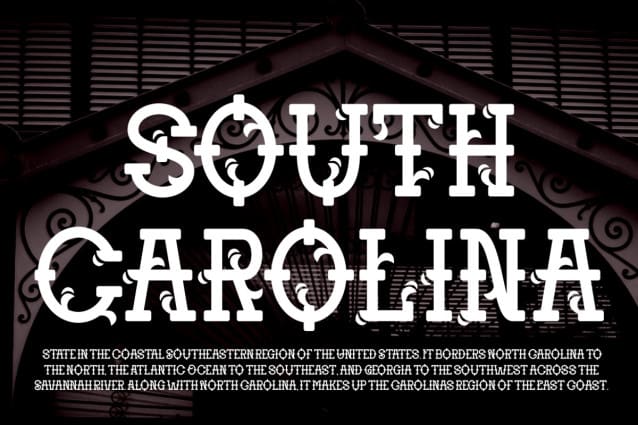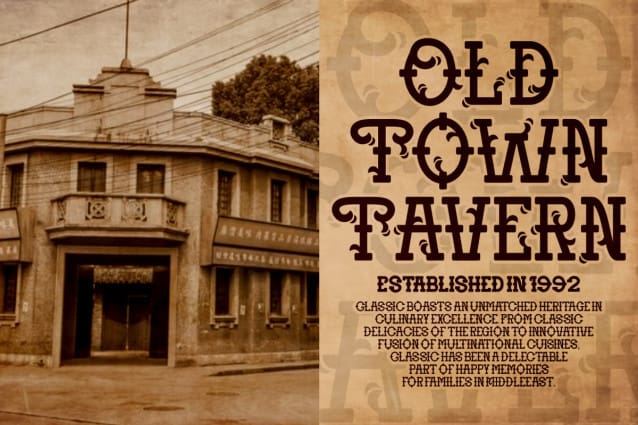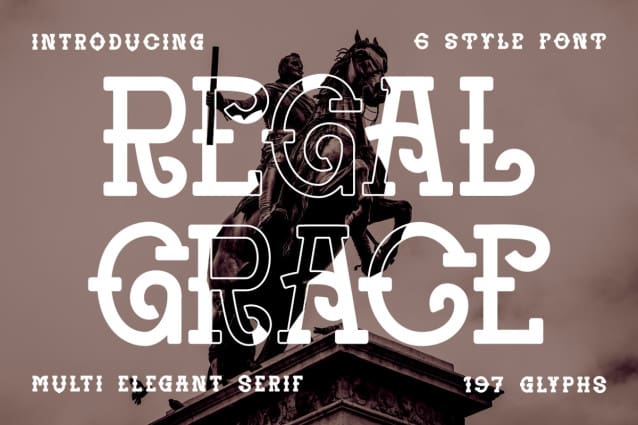
Regal Grace Font
Regal Grace Font – Multi Elegant Serif Font, where timeless elegance meets versatile functionality. This exquisite typeface embodies sophistication with its classic serif detailing and clean lines that exude an air of distinction. With six unique styles to choose from, Regal Grace offers designers an array of options for creating impactful visuals that speak volumes without saying a word. Each glyph has been crafted with precision to ensure readability while maintaining an upscale aesthetic appeal.
Whether you’re designing logos or branding materials, crafting personalized invitations or packaging, setting titles for posters or business presentations, creating greeting cards or stickers – even embellishing children’s books or magazines – Regal Grace is your go-to choice for adding a touch of class. Its multi-style versatility seamlessly adapts to both modern and traditional designs, making it as suitable for avant-garde creations as it is for vintage-inspired projects.